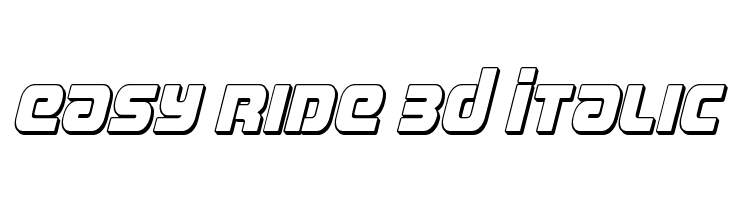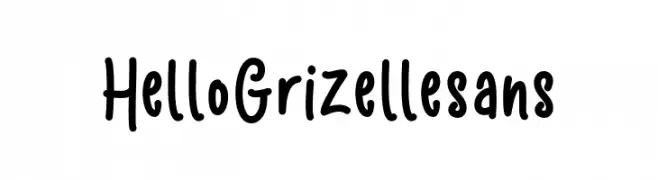
A graceful script font with elegant loops and swirls, perfect for romantic and luxurious designs.
A playful, hand-drawn font with tall, narrow letters and a whimsical style.
A bold, italicized script font with a playful, handwritten style.
A flowing, cursive script font with elegant, connected strokes and an italic slant.
A bold, 3D hollow italic font with a modern and dynamic style.
A modern, condensed, and slightly italic font with consistent stroke thickness.
A flowing, cursive script font with elegant, handwritten characteristics.
A bold, high-contrast serif font with geometric influences and sharp serifs.
A fluid, cursive font with a casual elegance and seamless flow.
Bold, italicized font with a collegiate, outlined style.
设计师偏爱 lesley lovely, Monday Party, Orange Cats PERSONAL USE ONLY Bold Italic, Washington Delmonte Italic and Progress 3D Hollow Italic,因为其造型干净、适用范围广—— 从品牌识别到落地页、海报都能胜任。